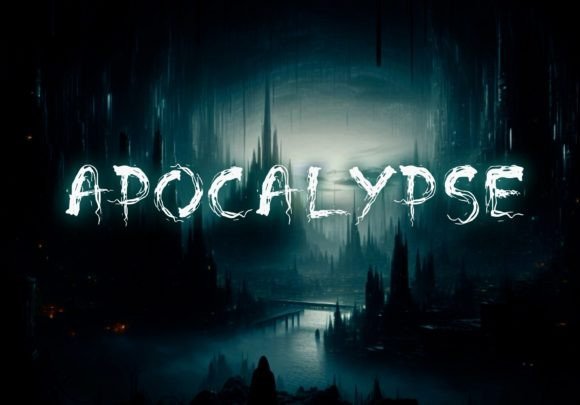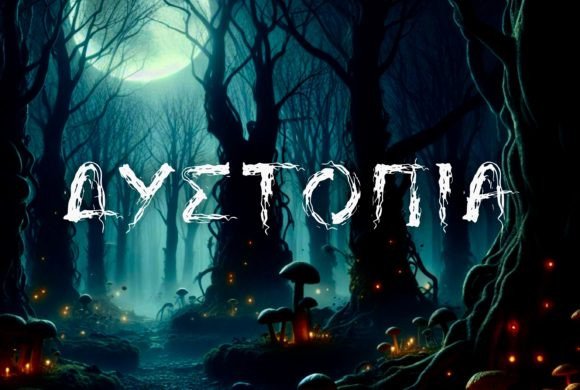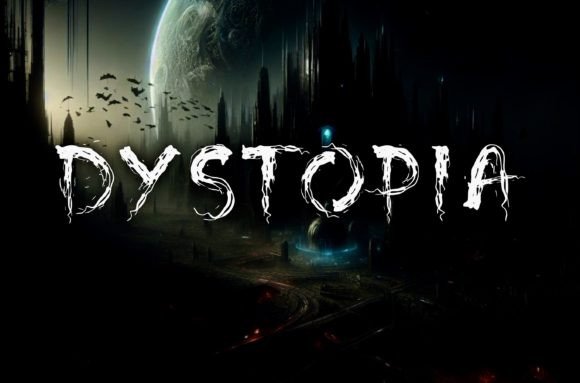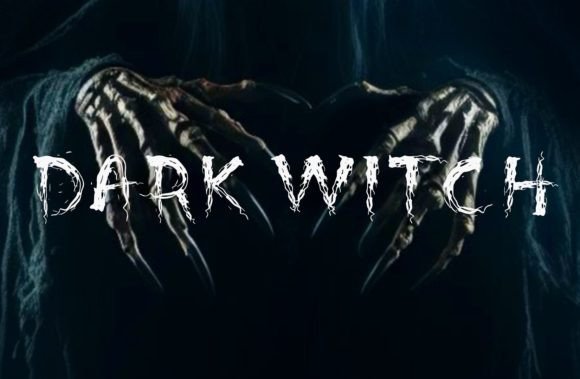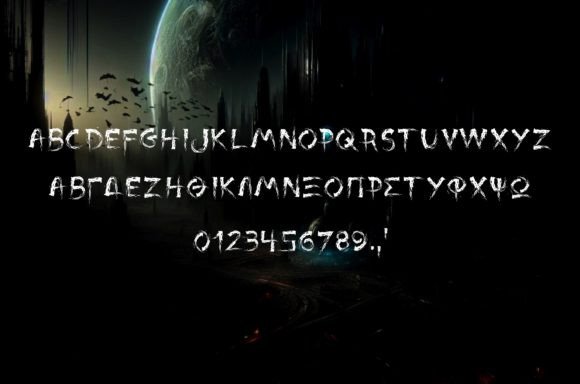
The Perfect Font for Your Next Dystopian Masterpiece
Have you ever stared at a blank page, trying to conjure up the perfect idea, but nothing seems to materialize? We’ve all been there – the spark of creativity is elusive, and the pressure to produce something amazing is mounting. But what if we told you that the key to unlocking your full creative potential lies in the right font?
Enter the Dystopia Font, a masterfully designed display font that’s guaranteed to send shivers down your spine. With its eerie, otherworldly feel, this font is the perfect addition to any design project that requires a touch of the macabre. Whether you’re creating a horror-themed movie poster, a spooky novel cover, or a haunting video game title, the Dystopia Font is sure to elevate your work to new heights.
Dystopia Font Key Features
- Unique Characteristics: Dystopia Font features a unique blend of futuristic and industrial elements, with a distressed texture that adds an edgy, post-apocalyptic feel to any design.
Dystopia Font Review
Overall, I think the Dystopia font is a great addition to the typography world. ✨ Its unique blend of futuristic and industrial elements makes it perfect for creating a sense of unease or uneasiness in your design projects.
- ✨ High contrast: The font’s bold lines and dark color scheme make it easy to read even in low-light conditions.
- ✨ Versatility: The Dystopia font can be used in a wide range of designs, from science fiction novels to futuristic corporate logos.
- ✨ Unique aesthetic: The font’s blend of futuristic and industrial elements gives it a unique look that sets it apart from other fonts.
However, there are a few limitations:
- ⚠️ Limited language support: The Dystopia font only supports a limited number of languages, which may make it difficult to use in international designs.
- ⚠️ Limited font sizes: The font may not look as good in smaller font sizes, which can make it difficult to use in designs where text needs to be small.
Overall, I think the Dystopia font is a great choice for designers who want to create a sense of unease or uneasiness in their designs. With its unique aesthetic and high contrast, it’s perfect for creating a futuristic or industrial look.
Practical Application Guide for Dystopia Font
For best results, use Dystopia Font in bold or italic styles to emphasize key messages. Common use cases include:
– Post-apocalyptic or sci-fi themed designs
– Warning signs or alert messages
– Futuristic or cyberpunk-inspired graphics
– Dark or edgy branding and marketing materials
Q: Can I customize the Dystopia Font to fit my specific design needs?
Yes, the Dystopia Font is designed to be highly customizable. You can adjust font weight, style, and other attributes using design software that supports OpenType features, such as Adobe Creative Cloud applications or Glyphs.